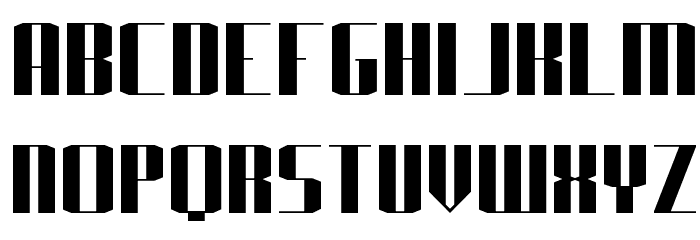
J-LOG Starkwood Sans Small Caps Font
This font features a bold and striking design with a modern, geometric aesthetic. The characters are constructed with sharp angles and clean lines, giving it a futuristic and industrial feel. The uppercase letters are uniform in height, while the lowercase letters maintain a consistent style, enhancing readability. The numbers are equally bold, matching the assertive style of the alphabet. Special characters are designed with the same geometric precision, ensuring a cohesive look across all glyphs. This font is ideal for making a strong visual impact, with its high contrast and distinct character shapes.
A bold, geometric font with a modern and industrial aesthetic.
- Font: J-LOG Starkwood Sans Small Caps
by jlog3000 - Weight: Regular
- Proposed Projects: Ideal for branding, posters, headlines, and any project requiring a strong visual impact.